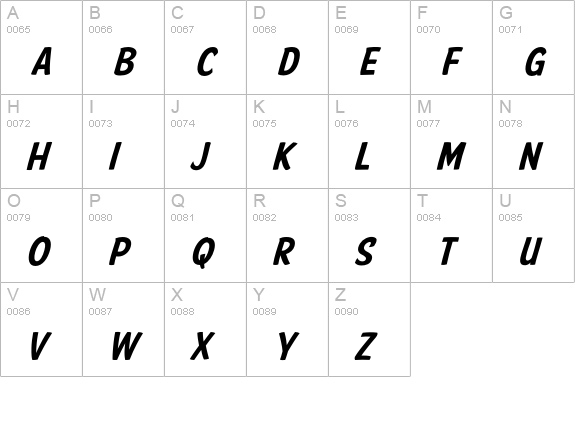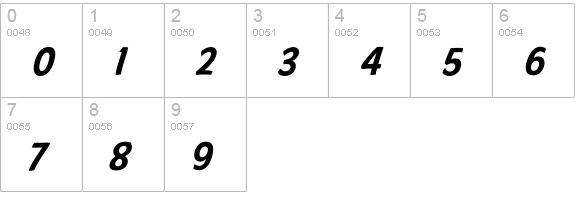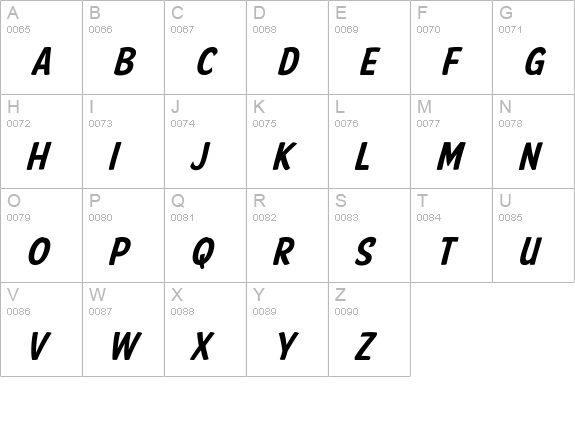
American Purpose Casual 02 Font Details
American Purpose Casual 02 is a versatile and playful font that exudes a sense of casual elegance. It combines the best of both worlds by effortlessly blending a traditional American aesthetic with a modern twist. With its rounded edges and slightly irregular strokes, this font captures the essence of hand-drawn lettering, adding a touch of authenticity to any design project. The free-spirited nature of American Purpose Casual 02 makes it perfect for a wide range of applications. Whether you're designing a logo, creating eye-catching headlines, or crafting invitations, this font will effortlessly elevate your work and leave a lasting impression. Its unique charm and character bring a sense of warmth and approachability to your designs, making it ideal for projects that require a friendly and inviting vibe. One of the standout features of American Purpose Casual 02 is its versatility. It can effortlessly transition from bold and attention-grabbing to subtle and understated, depending on your design needs. Its wide range of weights and styles allows for endless creative possibilities, ensuring that you can find the perfect fit for your project. And the best part? American Purpose Casual 02 is freely available to download at FontsMarket.com. This means that you can immediately start incorporating this stunning font into your designs without any hesitation. Whether you're a professional designer or a hobbyist, having access to this font is a valuable asset that can greatly enhance your creative endeavors. So why wait? Download American Purpose Casual 02 today and unlock a world of possibilities. With its unique blend of traditional charm and modern flair, this font is sure to make a lasting impression on any project. Experience the freedom and creativity that American Purpose Casual 02 brings to your designs, and see your ideas come to life in a way that is truly captivating.